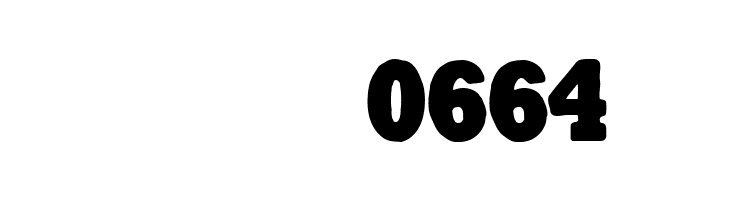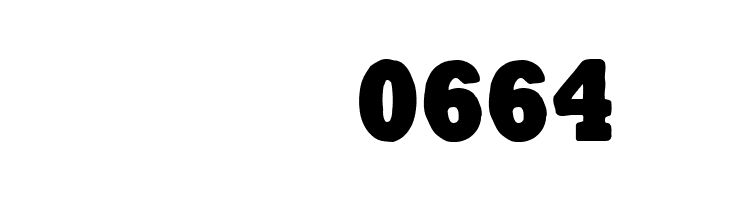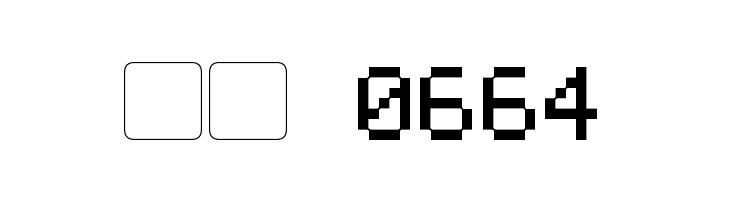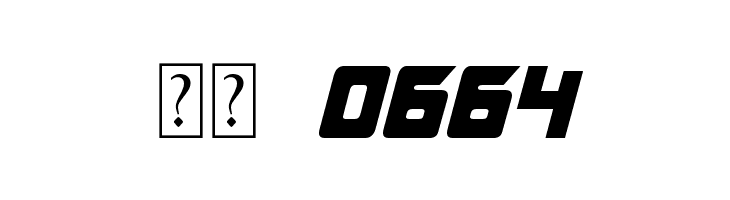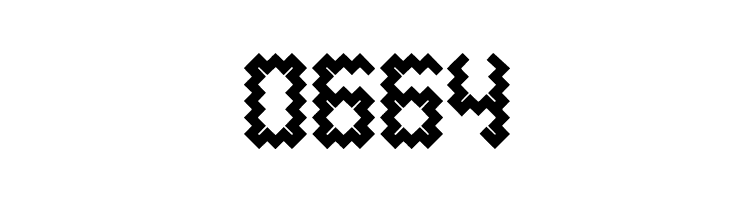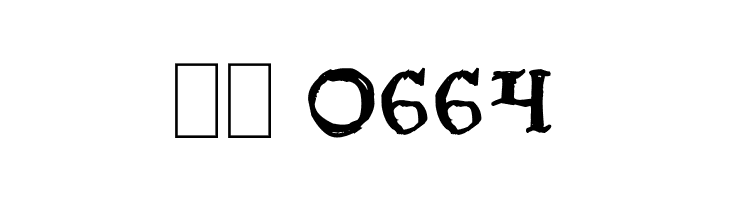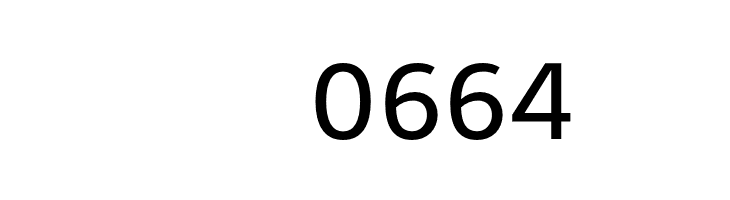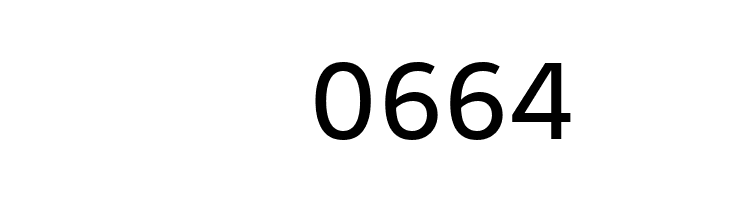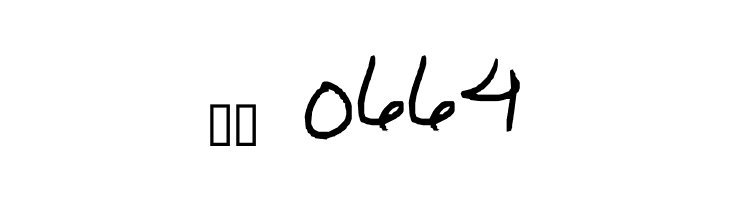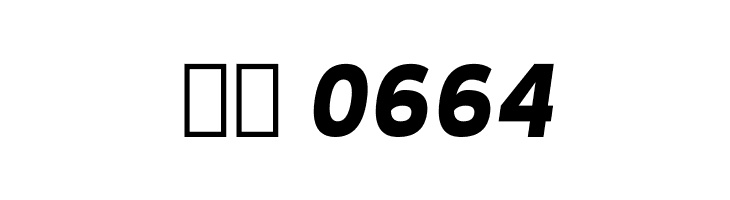
A bold, angular font with a futuristic and dynamic style.
A vibrant, graffiti-inspired font with bold, decorative characters.
A playful and casual handwritten font with fluid strokes and dynamic character.
A pixelated, retro-style font with a blocky, digital appearance.
A bold, 3D retro-futuristic font with geometric and angular design.
A bold, blocky font with a mechanical, industrial design.
A bold, geometric font with a zigzag pattern and consistent thickness.
A bold, vintage-style font with a rugged, hand-drawn appearance.
A modern, clean sans-serif font with consistent stroke width and excellent readability.
A bold, futuristic font with sharp angles and geometric shapes.
A modern, geometric font with a digital, LCD-inspired design.
A futuristic, geometric font with bold, rounded shapes and tight spacing.
A bold, geometric font with sharp angles and a futuristic style.
A modern, clean sans-serif font with excellent readability.
A clean, modern sans-serif font with balanced proportions and excellent readability.
A classic serif font with elegant curves and a timeless appearance.
A bold, rounded font with a strong, playful presence.
A bold, vintage-style font with thick, heavy strokes and a strong presence.
) A modern, clean sans-serif font with balanced spacing and consistent stroke width.
) A modern sans-serif font with clean, balanced letterforms and consistent stroke width.
A bold, modern typeface with thick strokes and strong visual impact.
A bold, italicized sans-serif font with a modern and dynamic style.
A modern, italicized sans-serif font with a sleek and professional appearance.
A sleek, modern sans-serif font with a light, italic style.
A modern, light sans-serif font with clean lines and balanced spacing.
A modern, clean sans-serif font with geometric letterforms.
A bold, rounded sans-serif font with a modern and friendly appearance.